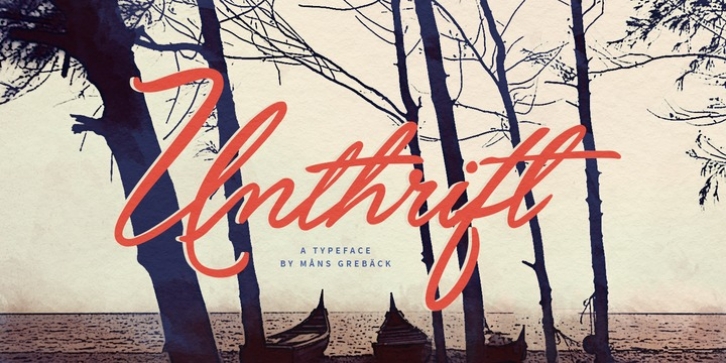
Unthrift was designed by Måns Grebäck and published by Mans Greback. Unthrift contains 2 styles and family package options.
Unthrift, a high quality script typeface, was created by Måns Grebäck in 2015.
It comes in two versions, First and Second, each with a different set of letters.
Unthrift is built with large and vivid brush strokes, and inspired by '90s handwriting.
An alternate alphabet, end letter alphabet, initializing letter alphabet and swash letter alphabet are some of the features. There are also contextual alternates and a lot of ligatures. All these features combined makes for a very fluid and realistic writing, and thousands of possibilities for customization.